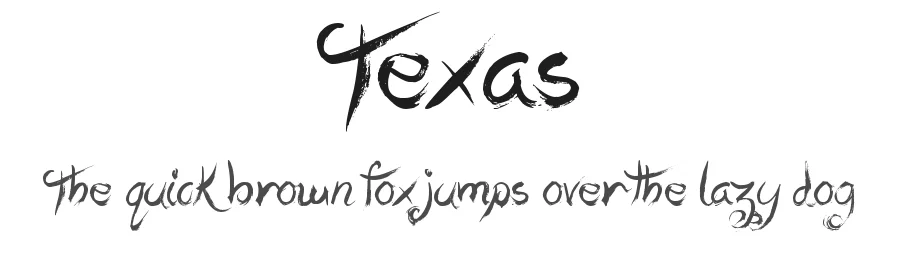
About Julius Thyssen Font
Julius Thyssen by Julius B. Thyssen is a cool handwritten script that brings contemporary, spontaneous energy to both print and digital work. This typeface captures the natural charm of personal handwriting while maintaining a distinctly modern sensibility that appeals to designers seeking authentic letterforms without sacrificing legibility or professional polish. With 233 glyphs supporting over 214 Latin-based languages, Julius Thyssen delivers genuine character and exceptional international reach for ambitious global projects.
The script's clean yet flowing lines make it particularly well suited to Instagram story graphics, where casual sophistication reads with clarity even at small sizes. Wedding invitation suites and formal stationery benefit from its careful balance between formality and warmth, creating an inviting tone that feels genuinely personal rather than stiff or overly traditional. Product packaging labels and Etsy shop product listings also capitalize on this typeface's approachable yet thoughtfully designed personality. DIY craft projects, sticker designs, informal poster work, and modern brand identity systems all gain distinctive character and visual interest from its relaxed contemporary voice and genuine handwritten authenticity.
Julius Thyssen Font is a script font that shines as a display or heading face. Pair it with a clean sans-serif or serif font for body text β the contrast creates a clear hierarchy while the two styles stay balanced and easy to read.